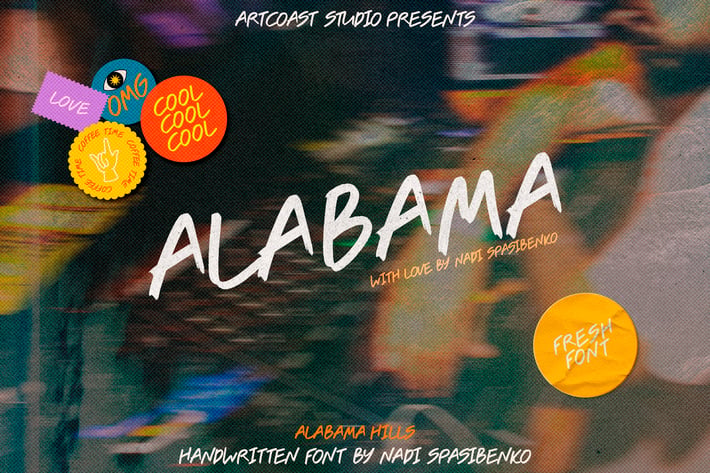
Alabama Handwritten Font
Alabama Handwritten Font for social media, packing, branding and other purposes. A bold and sweeping typeface to grab attention. You can create products and services using Alabama Font. Alabama font is great for social media, blogs, packaging and more